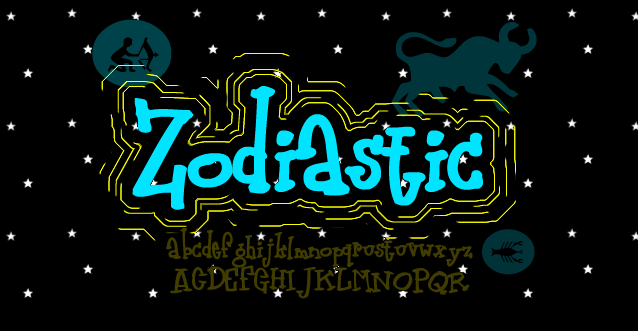
Zodiastic
Ms. Cleo never saw this one coming, mon! Has a handful of international letters as well as a constellation of zodiak dingbats to boot. Its what you might call an interstellar font.
The Zodiastic font family includes 219 glyphs.